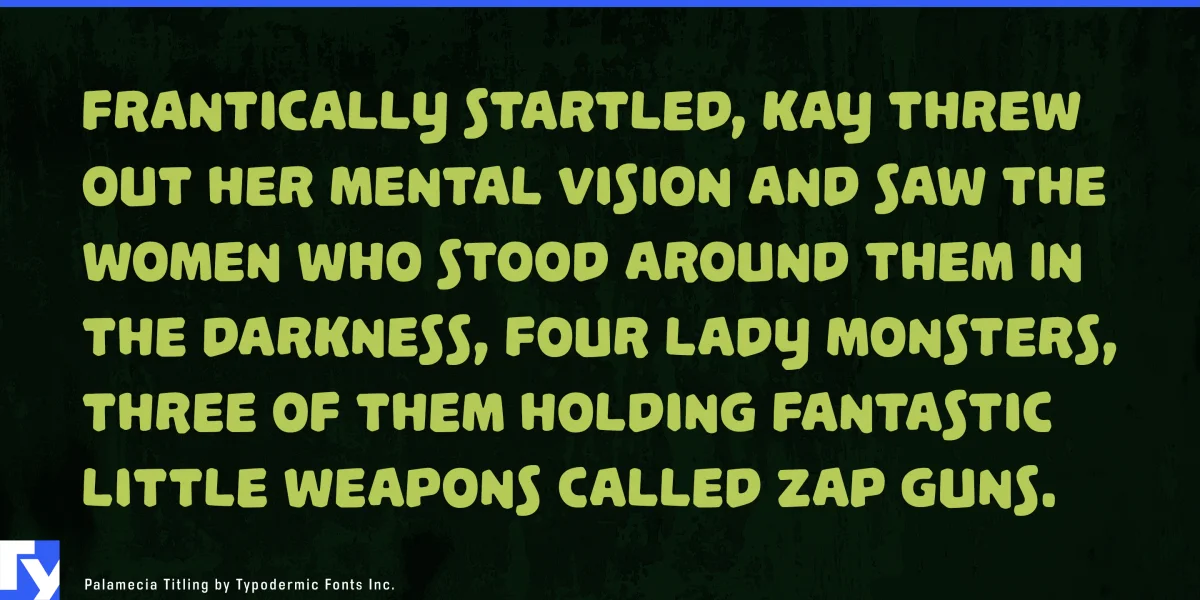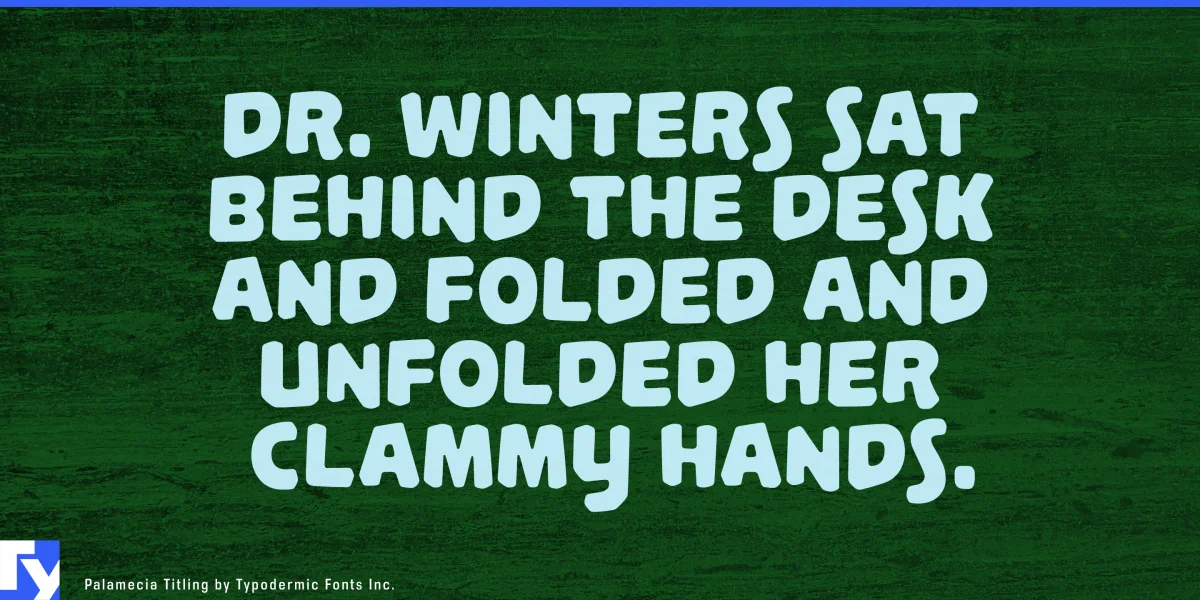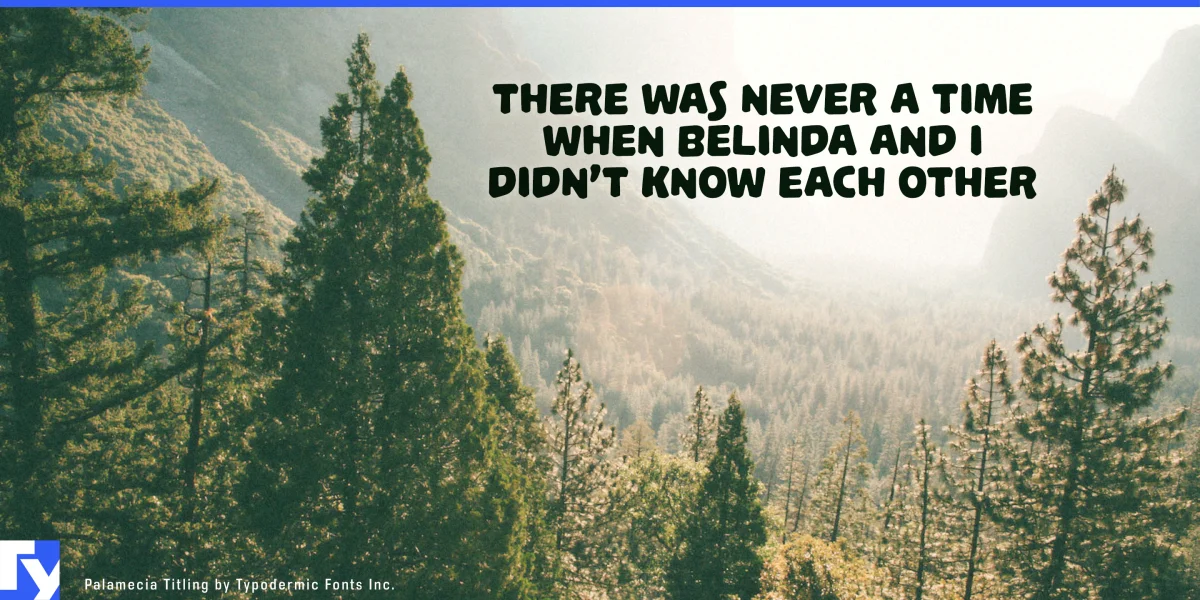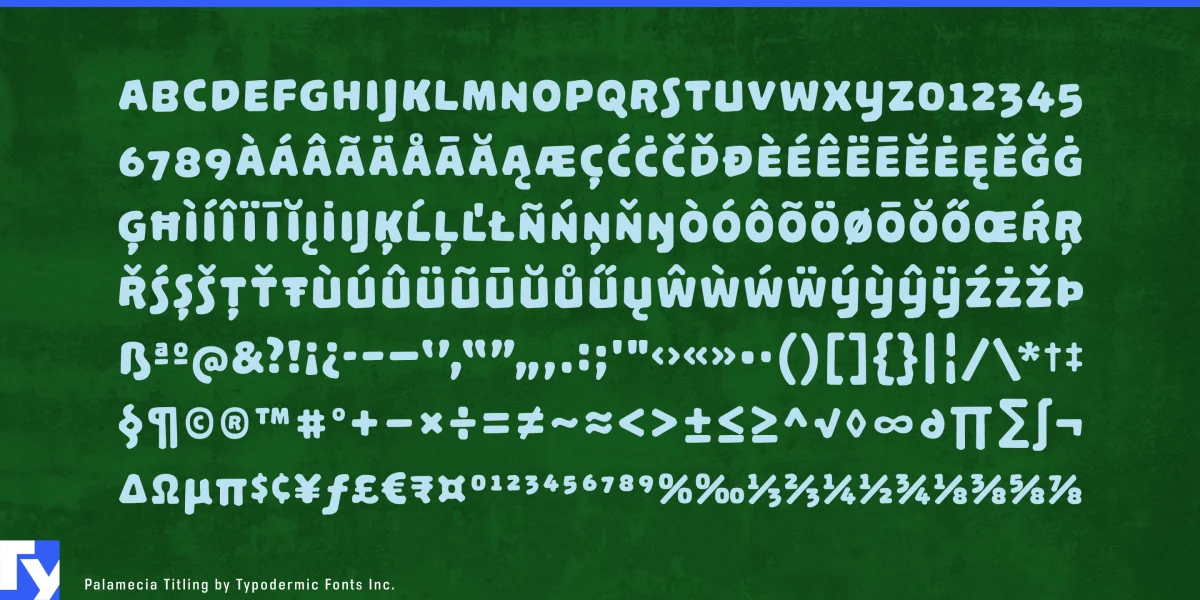
Palamecia Titling: where organic design meets digital resilience, reimagined in all caps. This Typodermic Fonts creation is a bold statement carved from pixels, ready to command attention across any interface.
At first glance, Palamecia Titling’s playful, almost cartoon-like appearance belies its sophisticated engineering. But look closer, and you’ll see a typeface forged to thrive in the challenging landscape of modern displays. Each uppercase character is a digital monolith, designed to maintain its integrity across a gauntlet of resolutions and pixel densities. Born not from the fluid strokes of a pen, but sculpted from digital clay, each letter in Palamecia Titling is the result of meticulous chiseling and chipping. This unconventional approach yields forms that are both rugged and refined—capitals that look as if they’ve been weathered by digital winds yet remain crisp and legible.
In user interfaces, Palamecia Titling truly shines. Its ability to pierce through the fog of varying display qualities makes it an invaluable tool for designers grappling with the challenges of responsive design. From high-resolution retina displays to low-density screens, these uppercase letters stand their ground, ensuring your headlines and titles remain clear and impactful. Palamecia Titling comes with a free commercial use desktop license, making it an accessible choice for a wide range of projects. Its organic, slightly whimsical character lends itself to striking applications in branding, app design, and digital media where all-caps typography can make a strong impression.
Supporting a vast array of Latin-based European writing systems, from Afrikaans to Zulu, Palamecia Titling ensures your uppercase designs can traverse linguistic boundaries without losing their distinctive character. For those seeking the full versatility of Palamecia, including lowercase letters and extended licensing options for web or app embedding, Typodermic Fonts offers the complete Palamecia family. But for projects that call for the impact of all-caps typography, Palamecia Titling stands ready to make its mark.